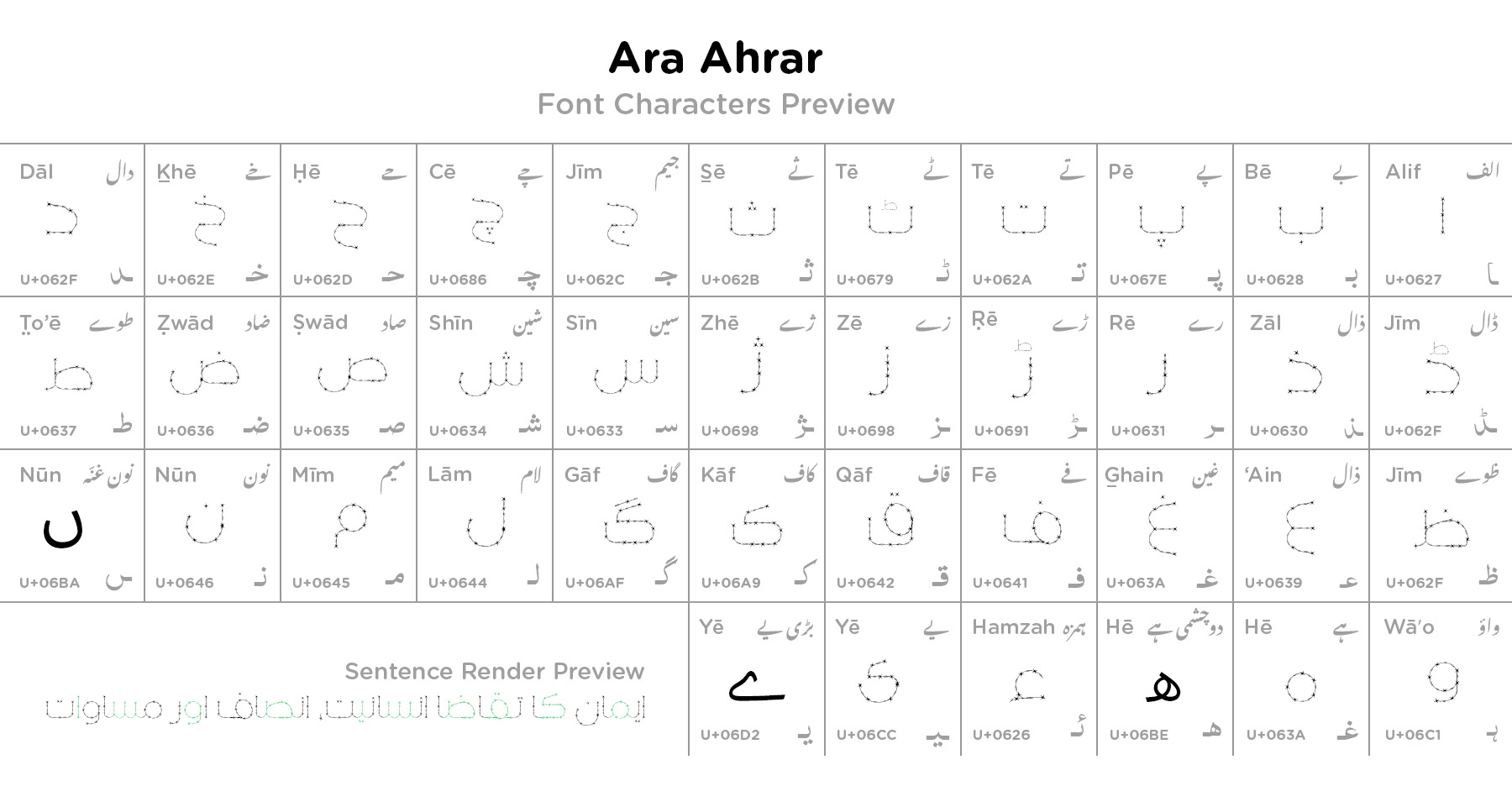
Ara Ahrar, designed to resemble barbed wire, was released on October 9, 2017, by ZakDesign. It symbolizes caution or prevention, drawing inspiration from the fencing used for containment. Designed by Zakariya Saleh and Abdullah Aref, this font features small pieces of sharply pointed wire twisted around at short intervals, adding a unique touch to its appearance. With 487 characters and 411 glyphs, the typeface supports Arabic, Latin, Urdu, and Persian languages, making it versatile for various design needs. Its thin font with decorative elements and delicate strokes gives it a distinctive look, albeit with potential legibility challenges at smaller sizes due to its delicate letterforms.
Despite offering only one weight, Ara Ahrar maintains consistency with its monospaced and even spacing. The font’s gentle, blunt corners and thin, pointy edges add to its aesthetic appeal. Suited for short textual blocks, it finds application in signs, cautionary symbols, posters, and banners, often symbolizing protest or conveying warnings. Its Unicode blocks encompass Basic Latin, Latin-1 Supplement, Latin Extended-A, Spacing Modifier Letters, Arabic, General Punctuation, Letterlike Symbols, Arabic Presentation Forms-A, and Arabic Presentation Forms-B, ensuring comprehensive language support and compatibility across various digital platforms.